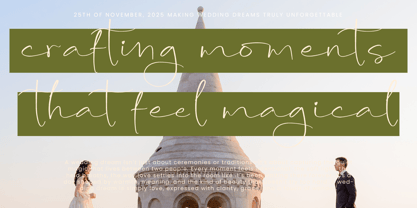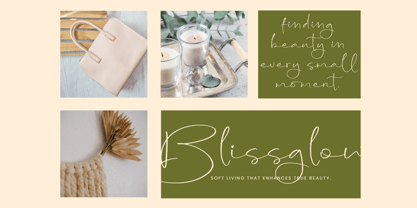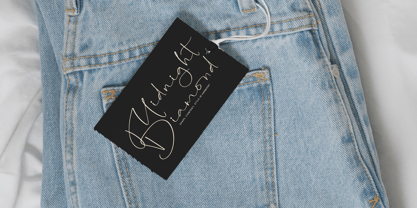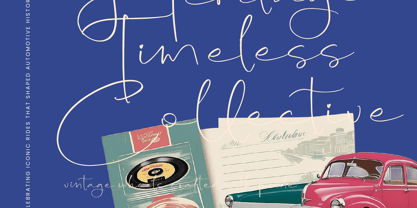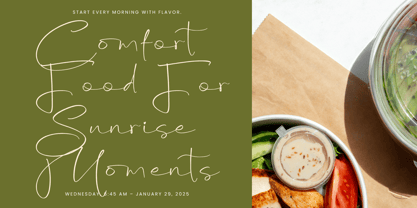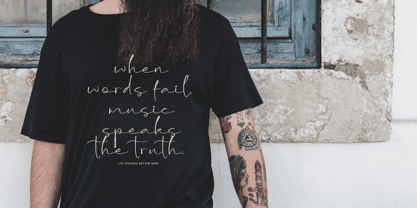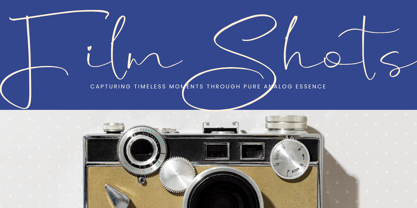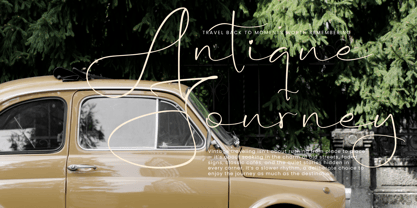
Radiant Oracle
by Integritype
The Radiant Oracle Font Family was designed by Ranndy Rizky Febrian and published by Integritype. Radiant Oracle contains 2 styles.
Radiant Oracle is a contemporary handwritten script font designed by Integritype Studio. This versatile typeface is ideal for a wide range of projects, including logos, branding, homeware designs, product packaging, mugs, quotes, posters, shopping bags, t-shirts, book covers, business cards, invitation cards, greeting cards, labels, photography, watermarks, and special events. Its elegant style adds a touch of luxury to any project that demands a premium aesthetic. With its unique character and fluid strokes, Radiant Oracle is perfect for both digital and print applications, making it a must-have for designers seeking to elevate their work.